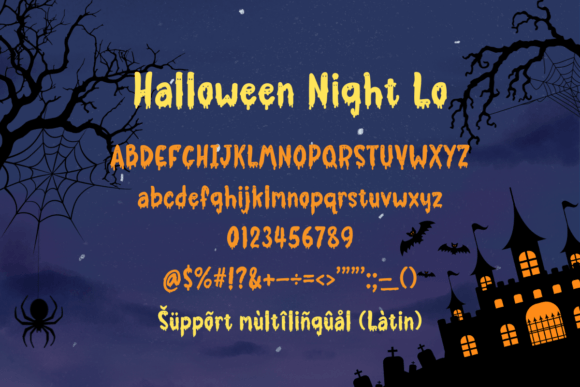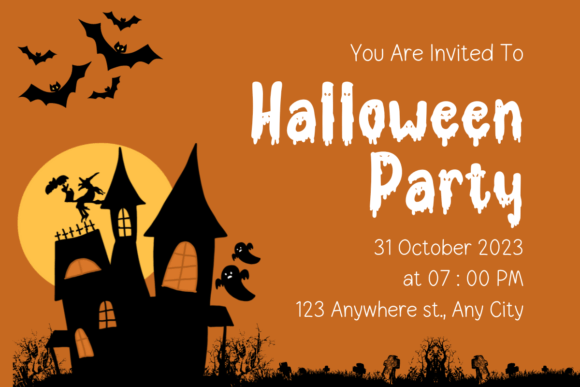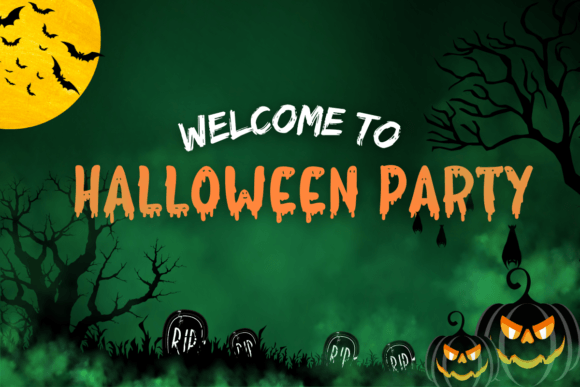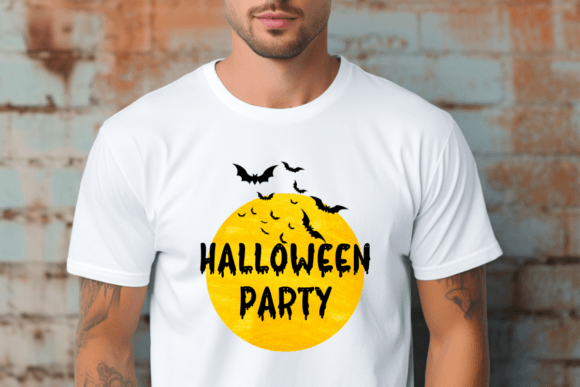
Get Ready for a Spooky Season with the Perfect Font
As the leaves turn golden and the nights grow darker, the creative juices start to flow for many designers and crafty folks. The anticipation of Halloween is in the air, and it’s the perfect time to unleash your creativity and bring some spooky magic to life. For those who love this eerie yet enchanting holiday, a special font has been crafted to capture the essence of the season – the Halloween Night Lo Font.
This thick-lettered, dripping font is the perfect tool for any Halloween-related project. Whether you’re designing spooky shirts, retro-style posters, or crafting Halloween invitations, the Halloween Night Lo Font is sure to add a touch of eerie charm. For designers, this font is a valuable asset, providing a unique and captivating way to bring Halloween-themed ideas to life.
Halloween Night Lo Font Key Features
- Font Family: Halloween Night Lo is a font family designed for a spooky and festive atmosphere.
- Unique Characteristics: The font features a unique blend of spooky and playful elements, including creepy creatures, ghosts, and jack-o-lanterns, making it perfect for Halloween-themed designs.
- Style Variations: Available in multiple styles, including regular, bold, and italic, allowing users to create a range of moods and emotions.
Halloween Night Lo Font Review
Overall, I was impressed with the Halloween Night Lo Font, but it has its limitations.
- The font’s spooky and playful vibe is perfect for Halloween-themed designs.
- The font’s unique, handwritten feel adds a touch of whimsy and personality to any project.
- The font’s OpenType features allow for some really cool and creative typography effects.
- The font is available in multiple weights and styles, making it versatile and easy to use.
- The font may be a bit too loud and overwhelming for some designs, so use it sparingly.
- The font’s OpenType features can be a bit buggy, so be patient and experiment carefully.
- The font is not ideal for large blocks of text, as the handwritten feel can become tiresome to read.
Overall, I would recommend the Halloween Night Lo Font for designers looking to add a playful and spooky touch to their Halloween-themed projects. Just be mindful of its limitations and use it in moderation.
Halloween Night Lo Font is perfect for:
- Halloween-themed designs (posters, invitations, social media graphics)
- Spooky typography for horror movies or TV shows
- Custom fonts for haunted houses or spooky decorations